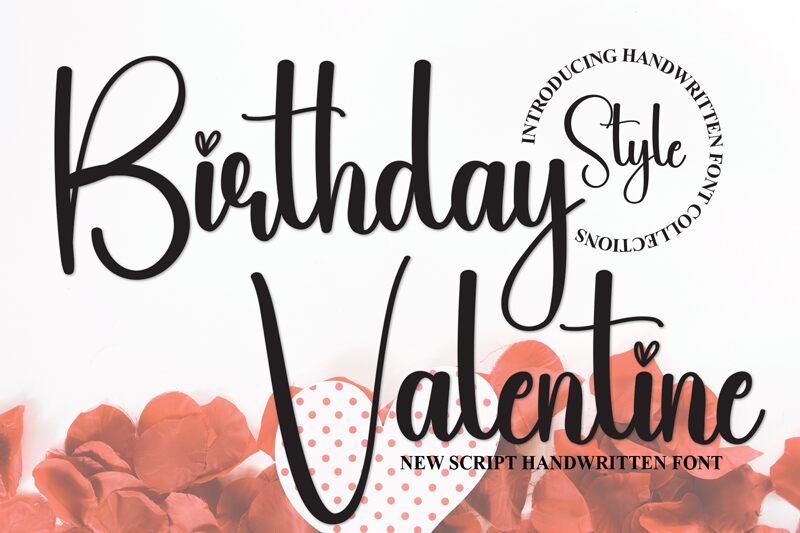
Birthday Valentine
Birthday Valentine, designed by Scratchones, exudes a personal touch with its handwritten flair that seems to dance across the page. This font captures the essence of intimate notes and heartfelt messages, making it perfect for occasions that call for a sprinkle of affection and warmth. Its elegant strokes and playful flourishes reflect a casual yet sophisticated charm, ideal for conveying love and celebration in various applications.
This font lends itself beautifully to greeting cards, wedding invitations, and personalized gifts. Its aesthetic appeal makes it an excellent choice for branding projects that aim to evoke tenderness or boutique businesses looking to stand out with a signature look. Birthday Valentine's inviting character is versatile enough to enhance any design seeking a human touch with its distinctively romantic style.